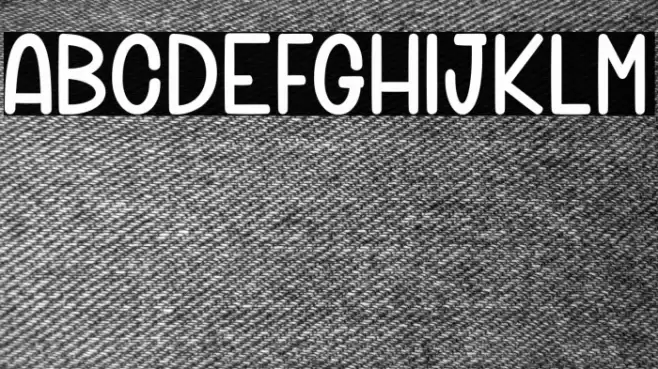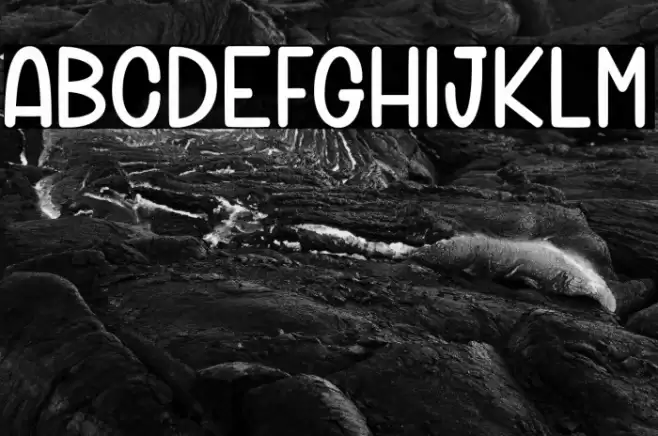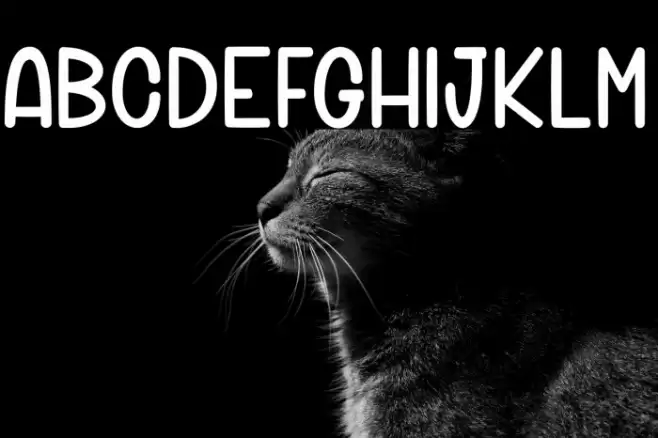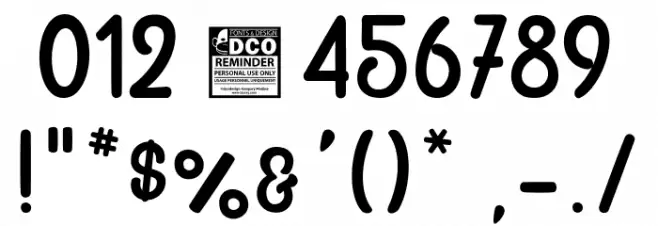
Green Beans_PersonalUseOnly Font
Green Beans_PersonalUseOnly Description
This playful and rounded font exudes a friendly and approachable vibe, making it ideal for casual and informal designs. The letters are bold with a consistent stroke width, giving it a uniform appearance. The characters have a slightly whimsical touch, with rounded edges and a smooth flow that enhances readability. The font maintains a consistent height across uppercase and lowercase letters, contributing to its balanced look. Its simplicity and charm make it versatile for various creative projects.
A playful, rounded font with a friendly and approachable style from Uncategorized fonts.
- Font: Green Beans_PersonalUseOnly
- Proposed Projects: Ideal for children's books, greeting cards, playful branding, and casual social media graphics.
- Overall Style: Playful
- Use Case: Headlines, Logos, Informal Text